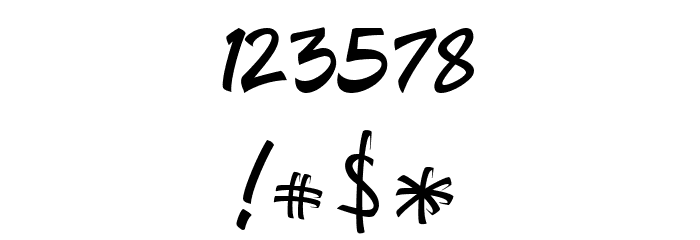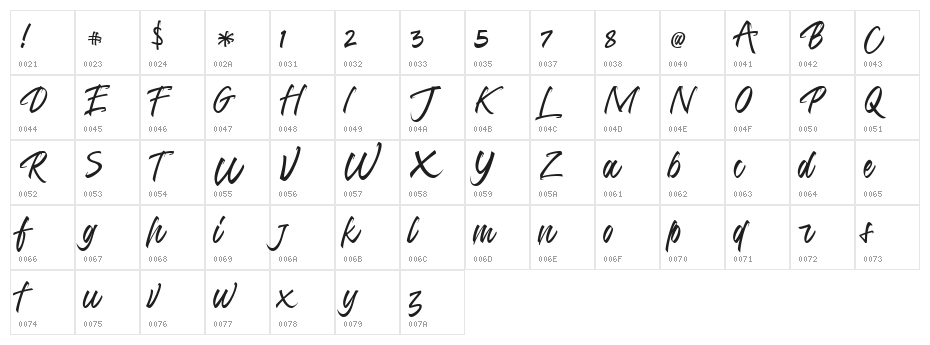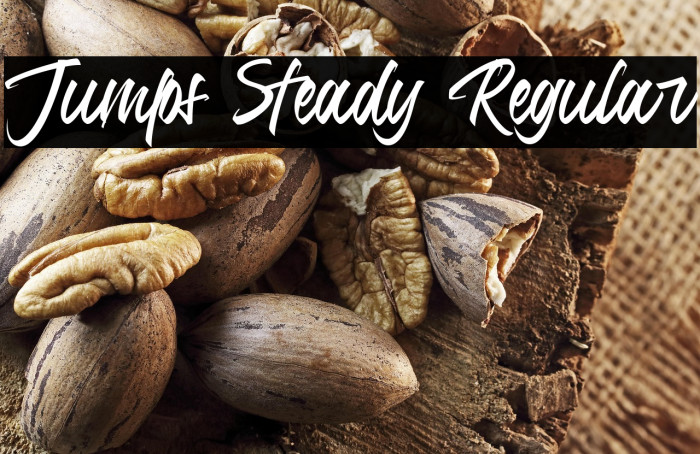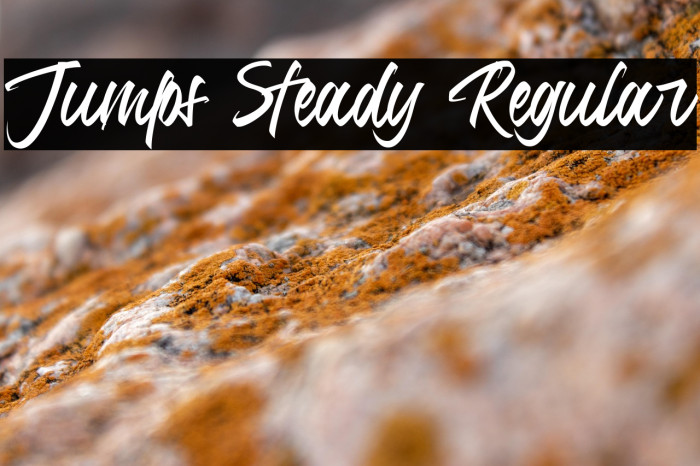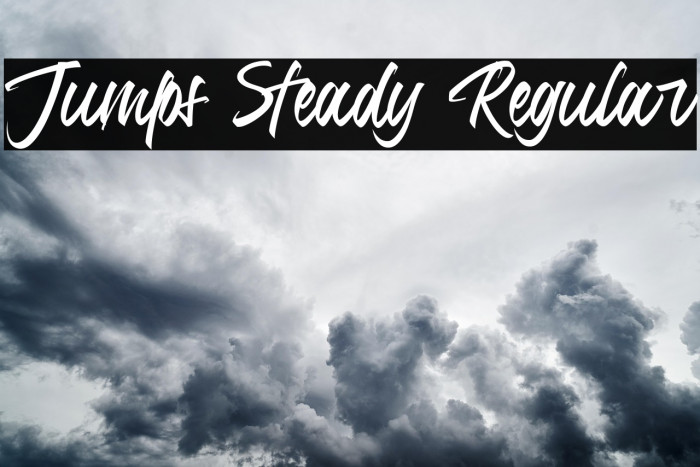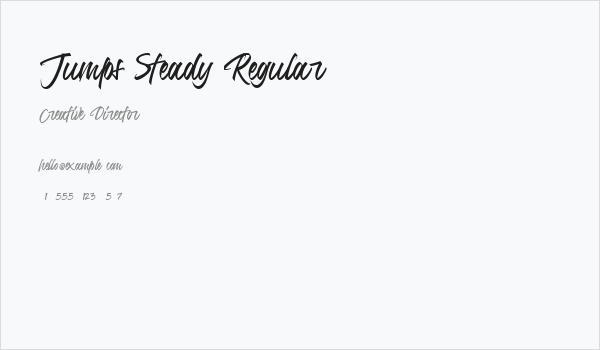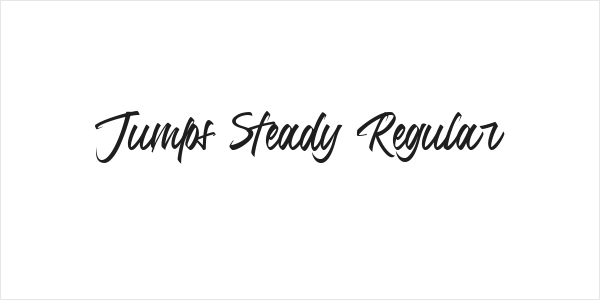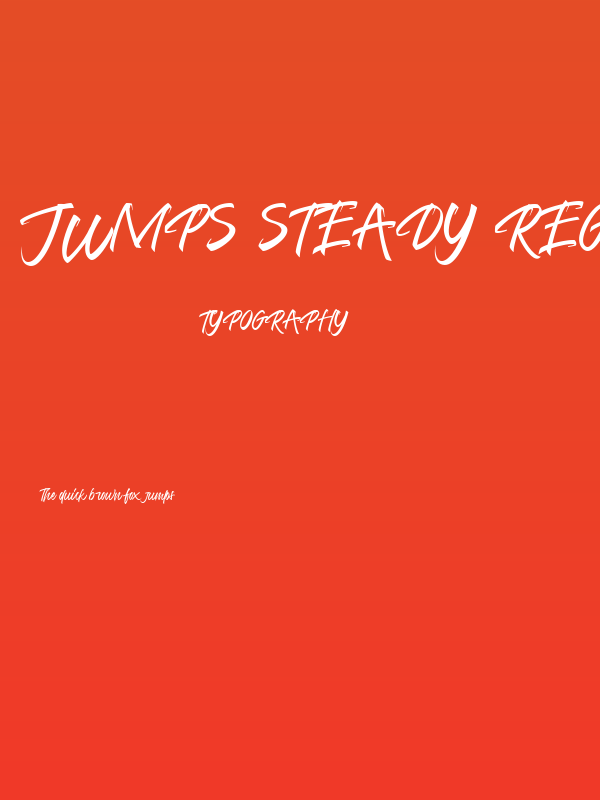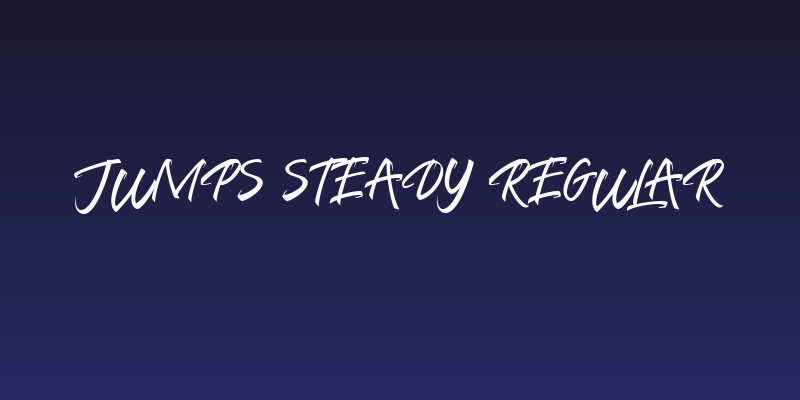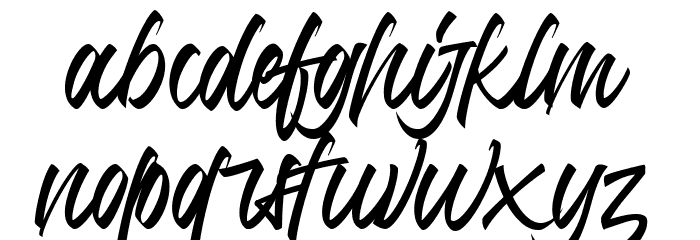
Jumps Steady Regular Font
Jumps Steady Regular Description
This font exhibits a dynamic and energetic script style, characterized by its fluid and cursive strokes. The letters are connected in a flowing manner, giving it a handwritten appearance. The uppercase letters are bold and prominent, while the lowercase letters maintain a consistent flow with a slight slant, enhancing its casual yet elegant look. The numbers and special characters are crafted with the same fluidity, ensuring a cohesive design throughout. This font's lively and expressive nature makes it suitable for projects that require a personal touch.